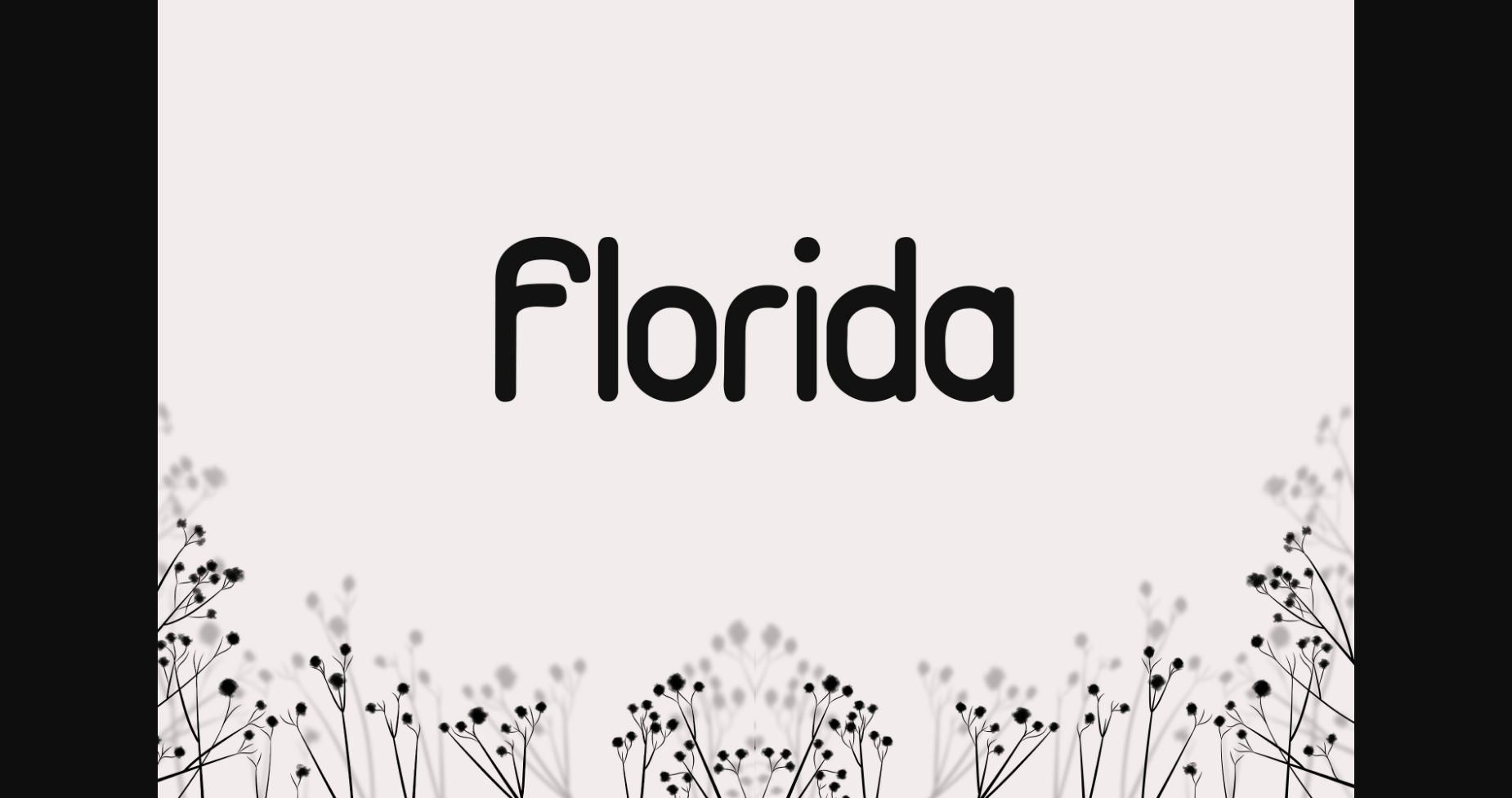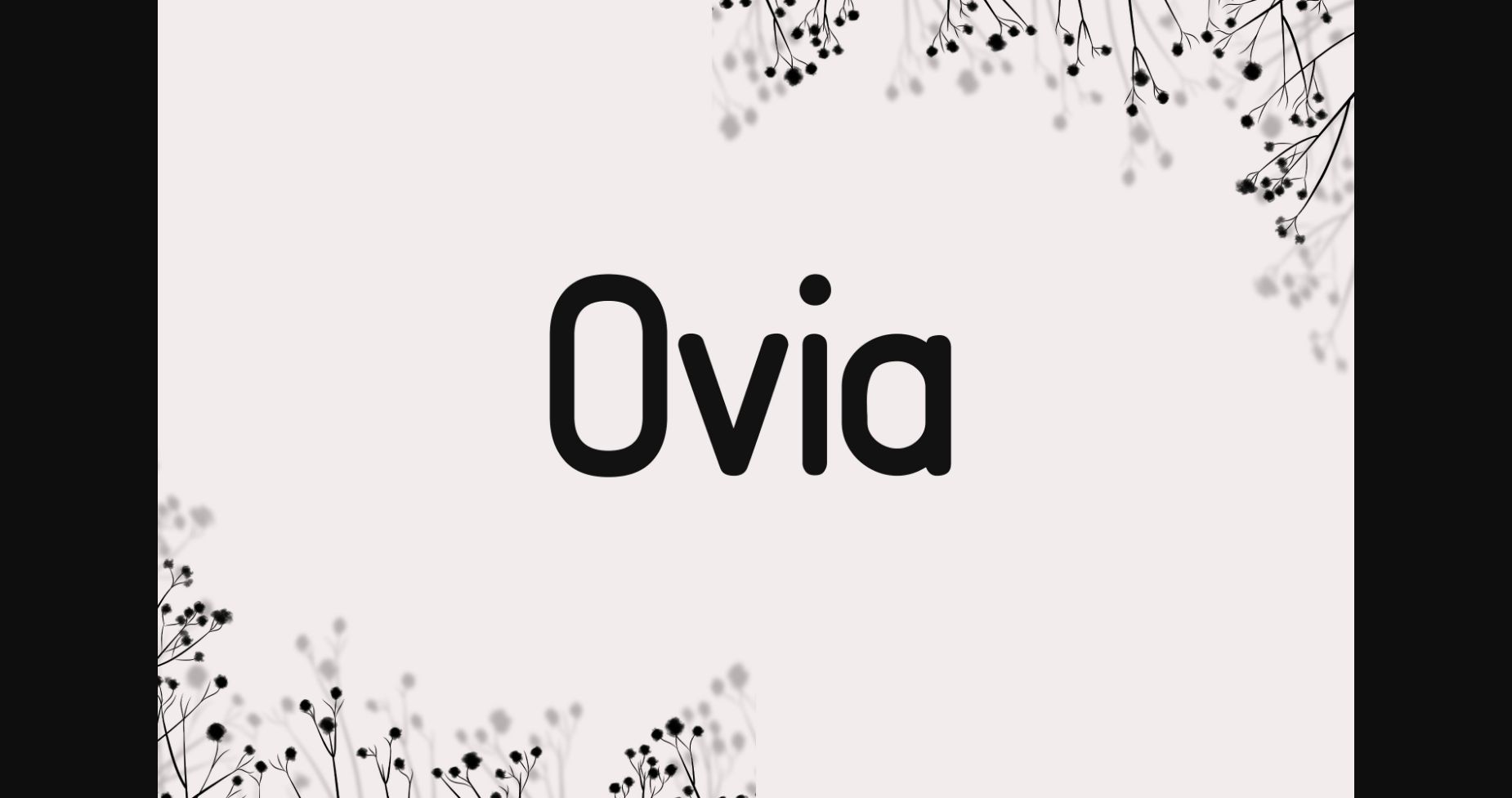
About Florida Font
Florida is a clean and simple sans serif font. It can easily be matched to an incredibly large set of projects, so add it to your creative ideas and notice how it makes them stand out!